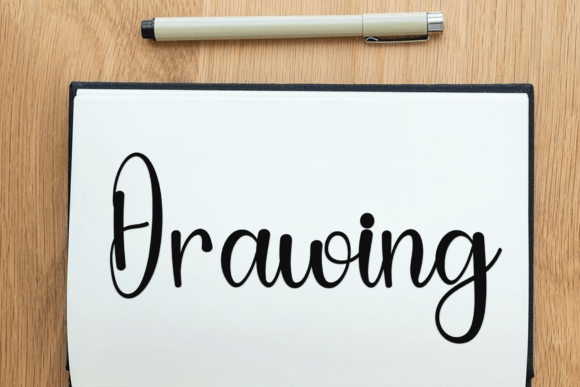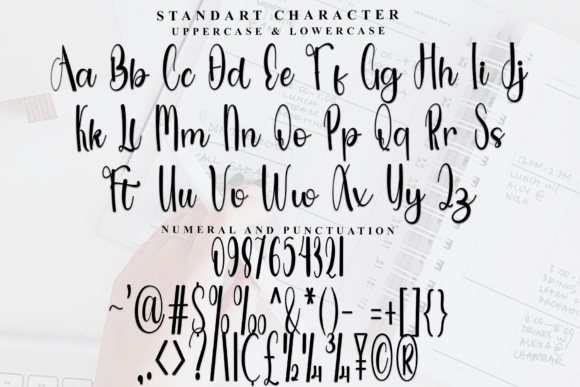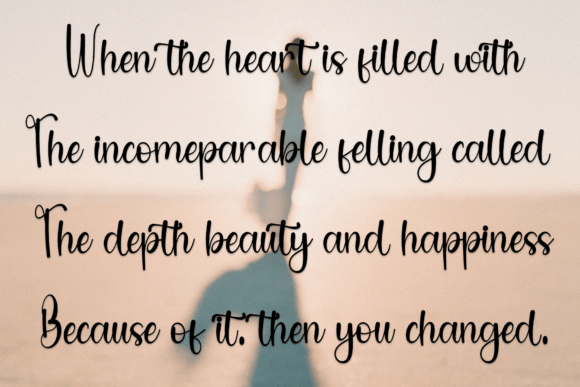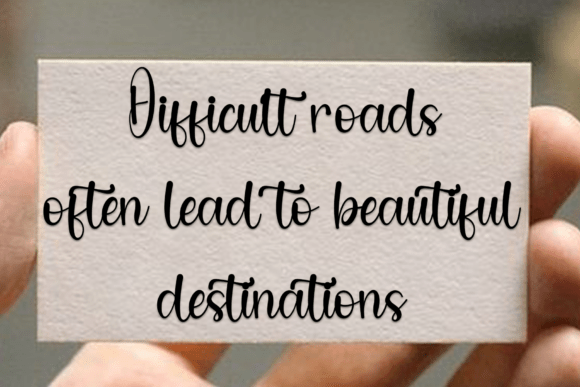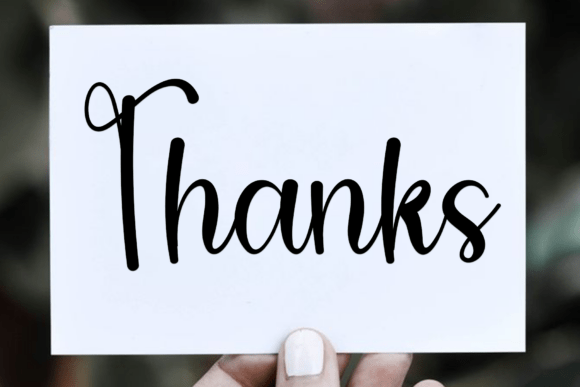
The Perfect Touch of Elegance
You know that moment when a design just comes together, and you feel like you’ve hit the jackpot? It’s the culmination of hours of brainstorming, sketching, and tweaking – and yet, it feels effortless. For designers, finding the right font can be the secret ingredient that elevates a project from good to great. Enter the Elegant Font, a modern script typeface that embodies the essence of simplicity and sophistication.
This versatile font is more than just a pretty face; it’s a tool that can help you create stunning beauty and wellness branding, wedding stationery, and personalized gift cards that exude elegance. Its clean finish, balanced weight, and smooth curves make it a valuable asset for any designer looking to add a touch of refinement to their projects.
With Elegant Font, you can create designs that are not only stylish but also welcoming and timeless – truly living up to its name. Whether you’re a seasoned pro or just starting out, this font is sure to become a trusted companion in your creative journey.
- Unique Characteristics: The font features elegant, cursive lines and refined details, making it ideal for creating sophisticated and luxurious designs.
- Font Weight: The font family includes light, regular, bold, and heavy weights, allowing for a high degree of customization and flexibility.
Elegant Font Review
I’ve been working with the Elegant Font for a while now, and I have to say, it’s a beautiful addition to any design. ✨ The flowing curves and classic feel make it perfect for luxury brands, fashion, and even high-end corporate materials.
- Wide character set: The Elegant Font comes with a wide range of characters, making it versatile and easy to use.
- Highly customizable: You can adjust the font’s weight, style, and even create custom variations to fit your design needs.
- Professional look: The Elegant Font exudes a sense of sophistication and elegance, perfect for creating a lasting impression.
- Not ideal for body text: While the Elegant Font is stunning for headings and titles, it can be too ornate for large blocks of text.
- Requires careful kerning: Due to its flowing curves, the Elegant Font can be tricky to kern, requiring extra attention to ensure proper spacing.
Overall, I’m impressed with the Elegant Font’s beauty and versatility. While it may have some limitations, it’s an excellent choice for designers who want to add a touch of luxury to their projects.